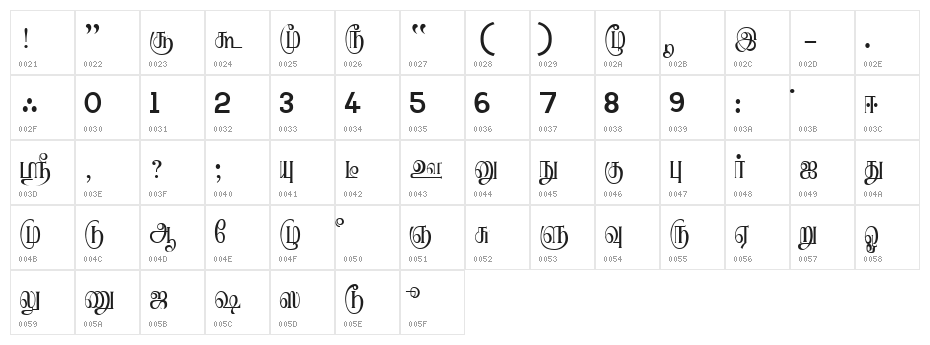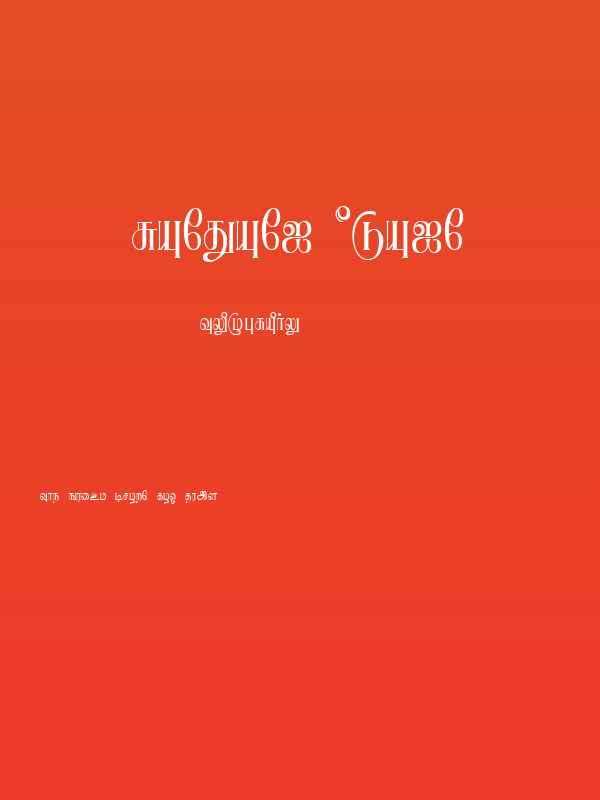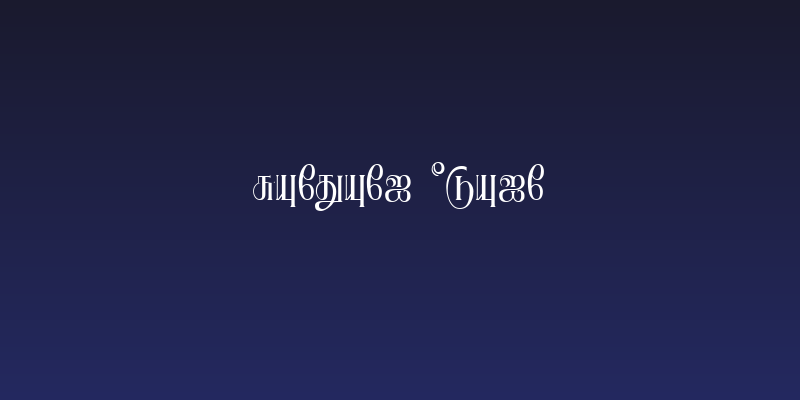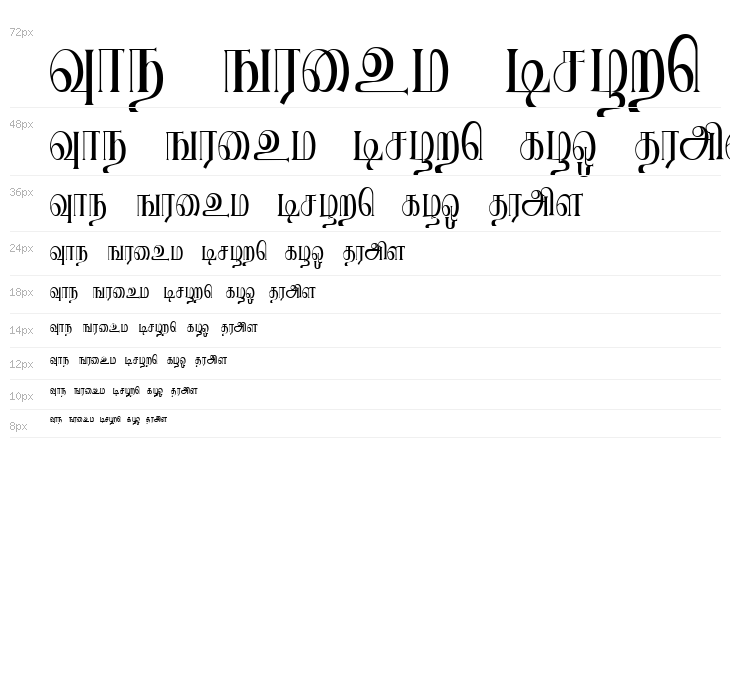
Ranjani Plain Font
Ranjani Plain Description
This font features a blend of traditional and modern elements, characterized by its elegant and flowing script. The characters exhibit a high level of detail and sophistication, with a distinct calligraphic influence. The strokes are smooth and fluid, creating a sense of movement and grace. The numerals are bold and clear, providing excellent readability. Special characters are designed with the same attention to detail, ensuring consistency across the font. This font is ideal for projects that require a touch of elegance and cultural richness.
| Use Case | Headlines, Artistic projects, Invitations |
| Proposed Projects | Ideal for wedding invitations, cultural event posters, elegant branding, and artistic projects. |